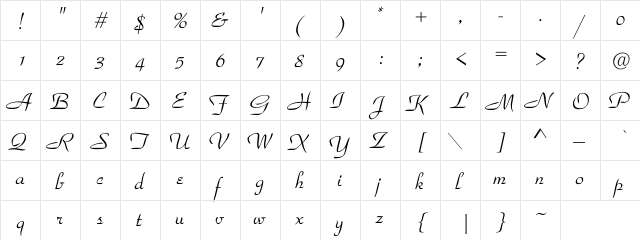
Flourishes Regular Font Preview
Flourishes Regular
Design Context for Flourishes Typeface
Flourishes is a composed and adaptable typeface that performs quietly and consistently across a wide range of design contexts.